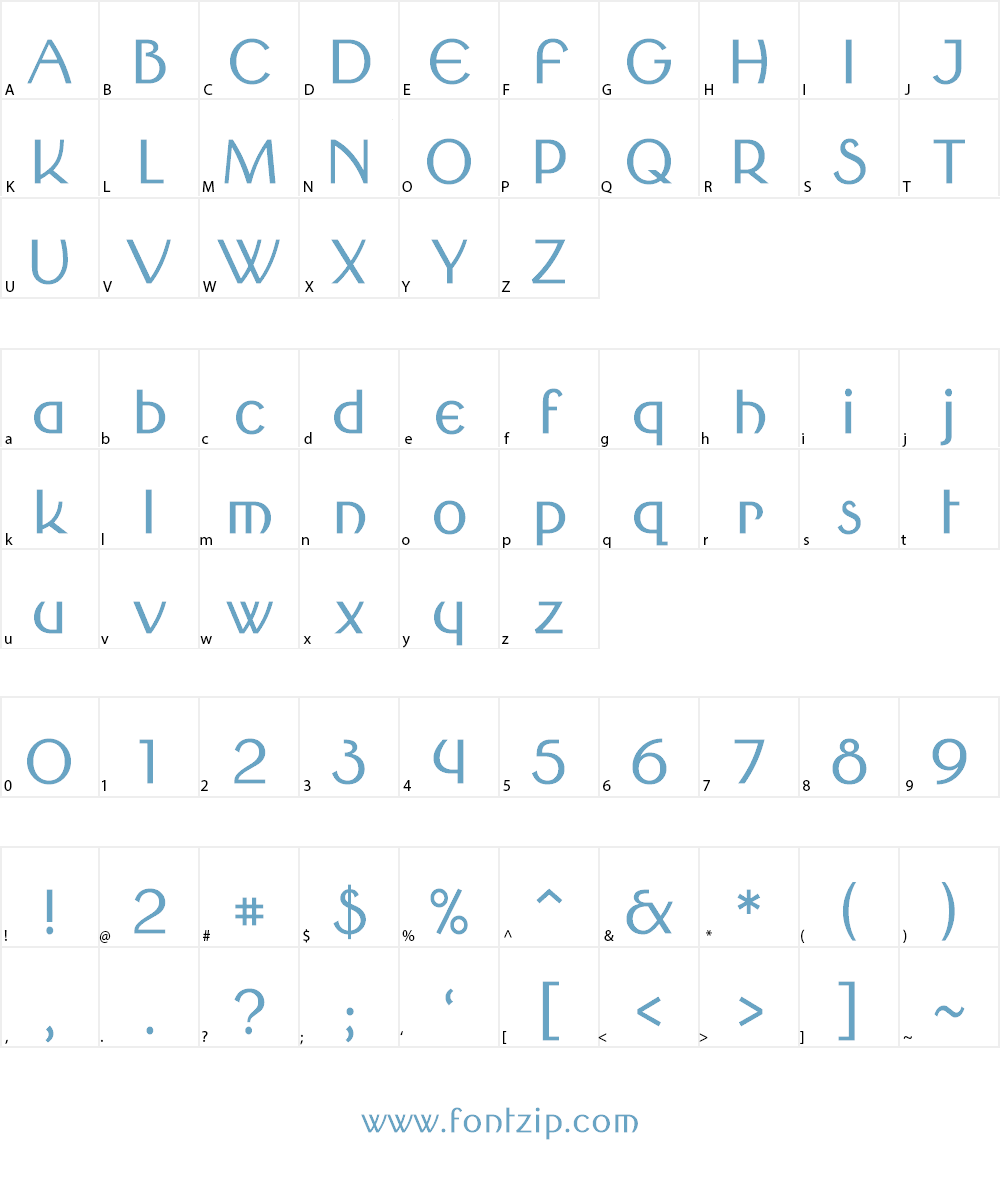
RoundStyle is four fonts family based on Roman Square Capitals and my older font from Nova Family fonts. The file contains four variants of the font - from the simpliest one to the most decorative. Updated, fixed at 08.10.2011